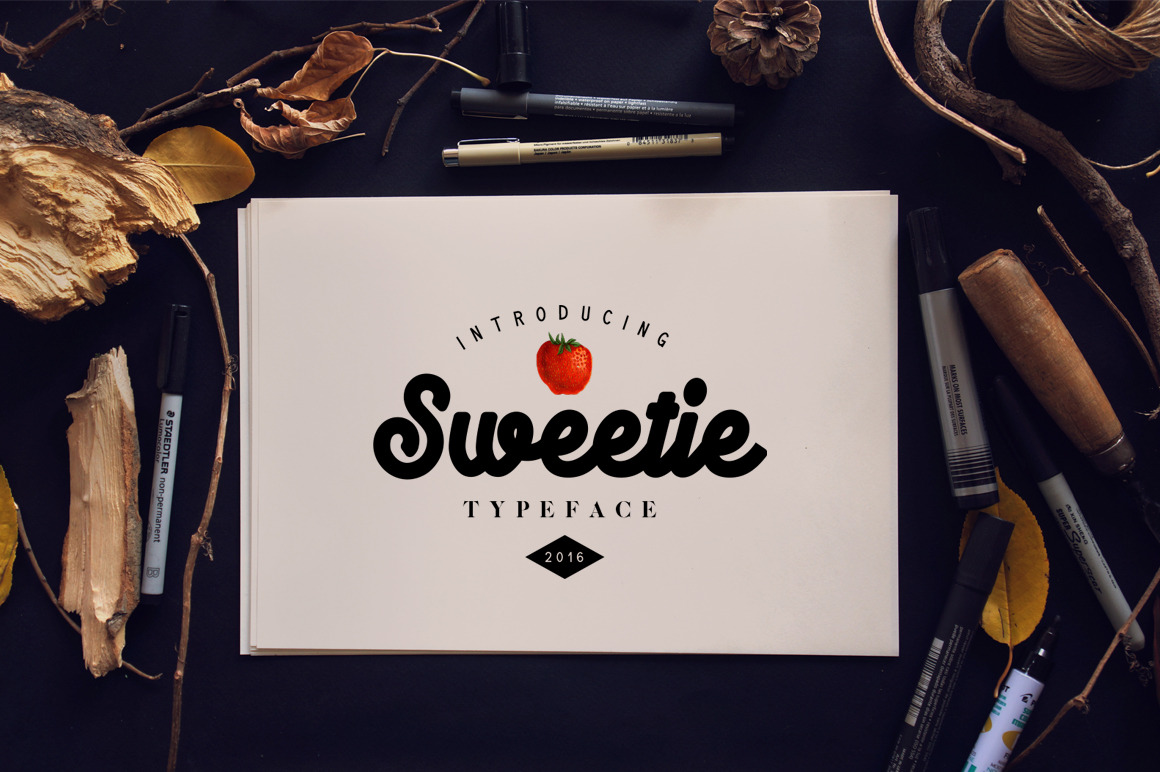
Sweetie Typeface
Sweetie Typeface is a bold, confident, cursive font with lots of alternates and OpenType features, perfect for a design that stands out even if it’s a logo, packaging, web, homeware design or simply a stylish text overlay to any background image.
Sweetie Typeface features:
- Stylistic alternatives & swashes
- Initials & finals
- International characters (Multilingual)
- Punctuation & symbols
- OpenType Features